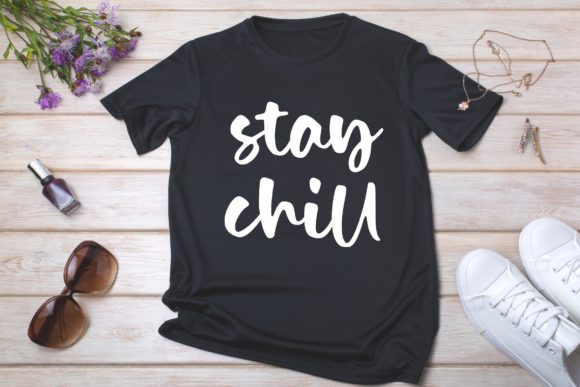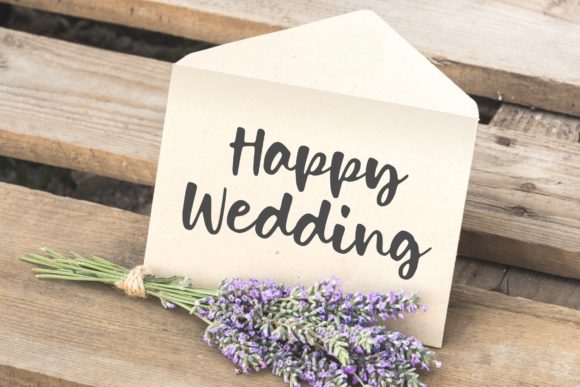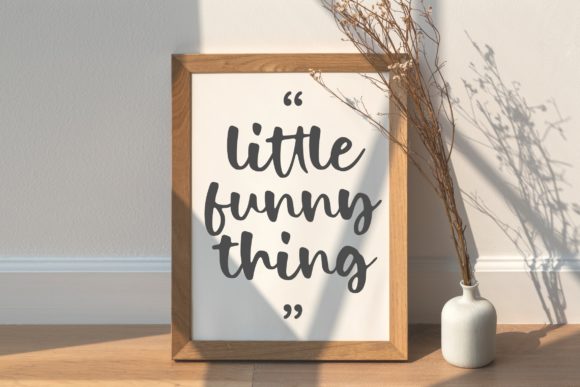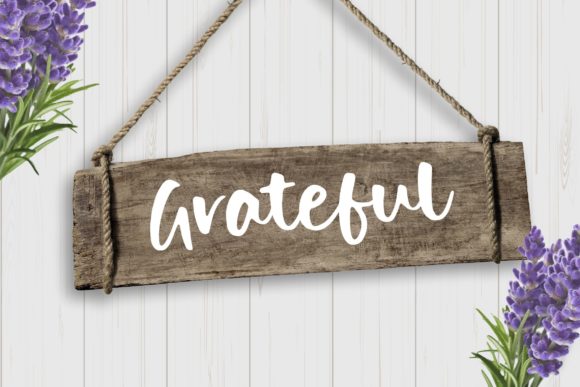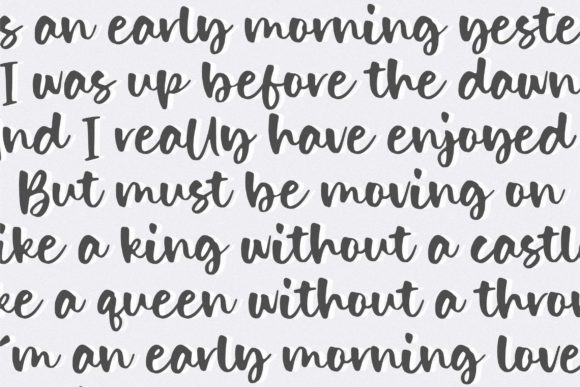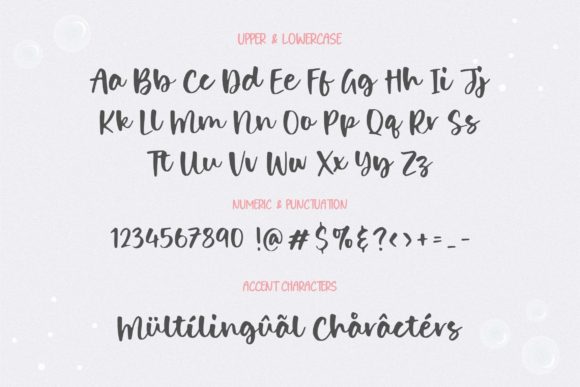
Dolphin Dolls Font: A Cute and Vintage Handwritten Font for Your Creative Projects
Are you a designer or crafter looking for a unique and charming font to add a touch of personality to your creations? Look no further than Dolphin Dolls Font, a delightful handwritten font that is sure to become a treasured asset in your font library. With its cute and vintage styling, Dolphin Dolls Font is perfect for a wide range of projects, from digital designs to handmade crafts.
What is Dolphin Dolls Font?
Dolphin Dolls Font is a carefully crafted handwritten font that exudes a sense of nostalgia and playfulness. Its unique blend of classic and modern elements makes it an versatile choice for any creative project. Whether you’re designing a logo, creating a social media graphic, or crafting a handmade card, Dolphin Dolls Font is sure to add a touch of whimsy and charm.
Key Features of Dolphin Dolls Font
- Cute and Vintage Styling: Dolphin Dolls Font features a distinctive vintage-inspired design that is both adorable and eye-catching.
- Handwritten Style: This font boasts a beautifully handwritten style that adds a personal touch to any project.
- Versatile: Dolphin Dolls Font can be used for a wide range of creative projects, from digital designs to handmade crafts.
- Easily Readable: Despite its ornate design, Dolphin Dolls Font is surprisingly easy to read, making it perfect for use in both headings and body text.
Uses for Dolphin Dolls Font
Dolphin Dolls Font is a versatile font that can be used in a variety of creative projects, including:
- Digital Designs: Use Dolphin Dolls Font to add a touch of personality to your social media graphics, blog posts, and website designs.
- Handmade Crafts: Add a personal touch to your handmade cards, scrapbook pages, and other paper crafts with Dolphin Dolls Font.
- Logos and Branding: Use Dolphin Dolls Font to create a unique and memorable logo for your business or brand.
- Signage and Displays: Dolphin Dolls Font is perfect for use in signage and display projects, such as store signs, banners, and posters.
Tips for Using Dolphin Dolls Font
To get the most out of Dolphin Dolls Font, here are a few tips to keep in mind:
- Use it Sparingly: While Dolphin Dolls Font is a beautiful font, it can be overwhelming if used excessively. Use it sparingly to add emphasis and personality to your designs.
- Pair it with Other Fonts: Experiment with pairing Dolphin Dolls Font with other fonts to create a unique and visually appealing design.
In conclusion, Dolphin Dolls Font is a charming and versatile handwritten font that is sure to become a valuable asset in your font library. With its cute and vintage styling, it is perfect for a wide range of creative projects, from digital designs to handmade crafts. Whether you’re a designer or crafter, Dolphin Dolls Font is a great choice for anyone looking to add a touch of personality and whimsy to their creations.